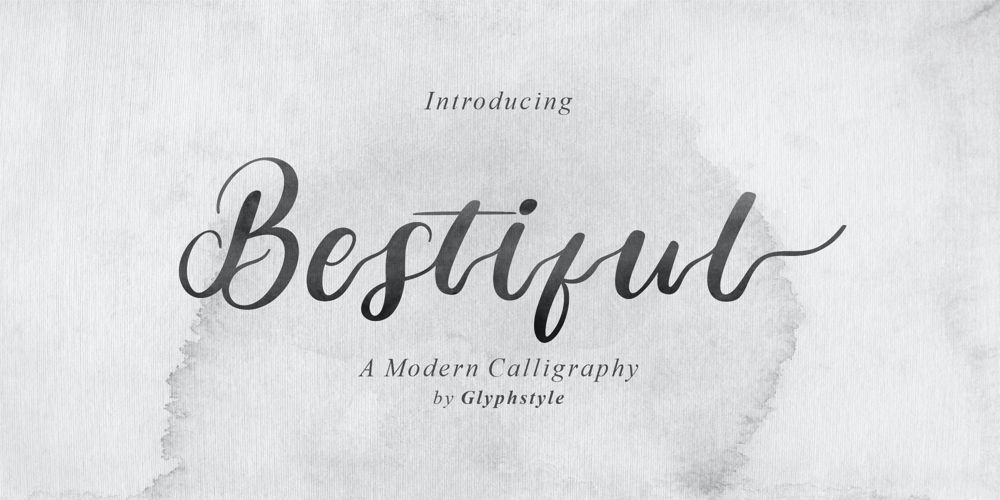
Bestiful
Bestiful font
Bestiful Font Family was designed by Dimas Ardhi and published by GlyphStyle. Bestiful contains 1 styles and family package options. Beautiful is a font with a modern calligraphy style and free form, has a curly end, not found in other fonts. Charming and beautiful font – Font feature Uppercase, Lowercase, Numerals & Punctuations, Stylistic alternate(ending), Ss01(beginning), Ligature, Swashes, Multilanguage